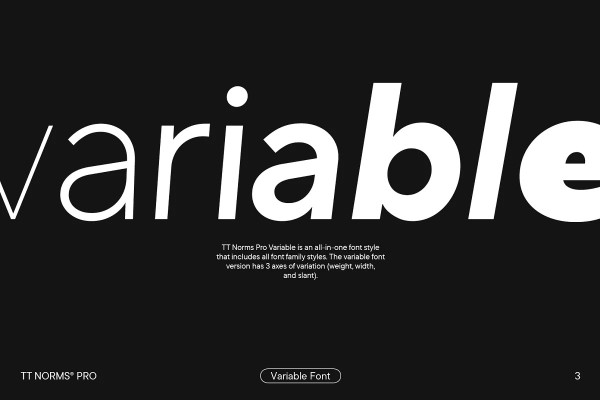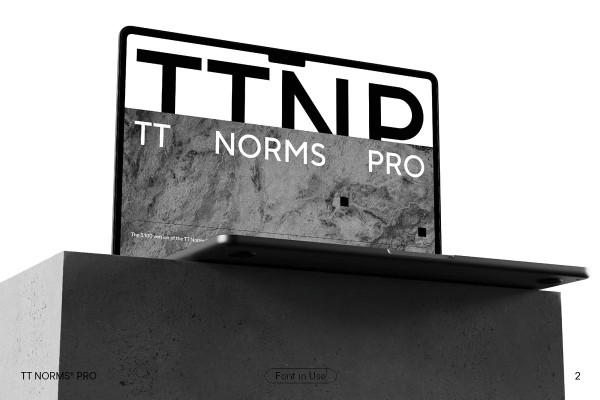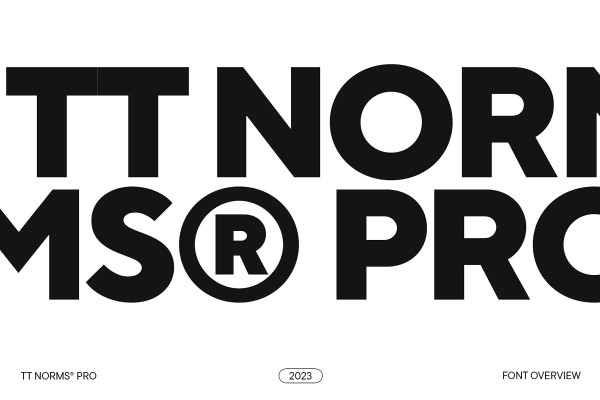
TT Norms Pro Sans Font
TT Norms Pro Sans Font is a popular sans serif font family inspired by urban and modern life on a metropolis city. In TT Norms® Pro Mono, all glyphs are inscribed in the same-width pin area, and there are no elements in the font that go beyond these boundaries. The font family made it possible to obtain an even and uniform set.
Despite all the work done, TT Norms® Pro continues to be a geometric sans serif for a wide range of applications—a trouble-free workhorse. TT Norms® Pro works equally well both in large text arrays or in headlines, as well as in web and it is “the one”, the indispensable universal modern geometric sans.